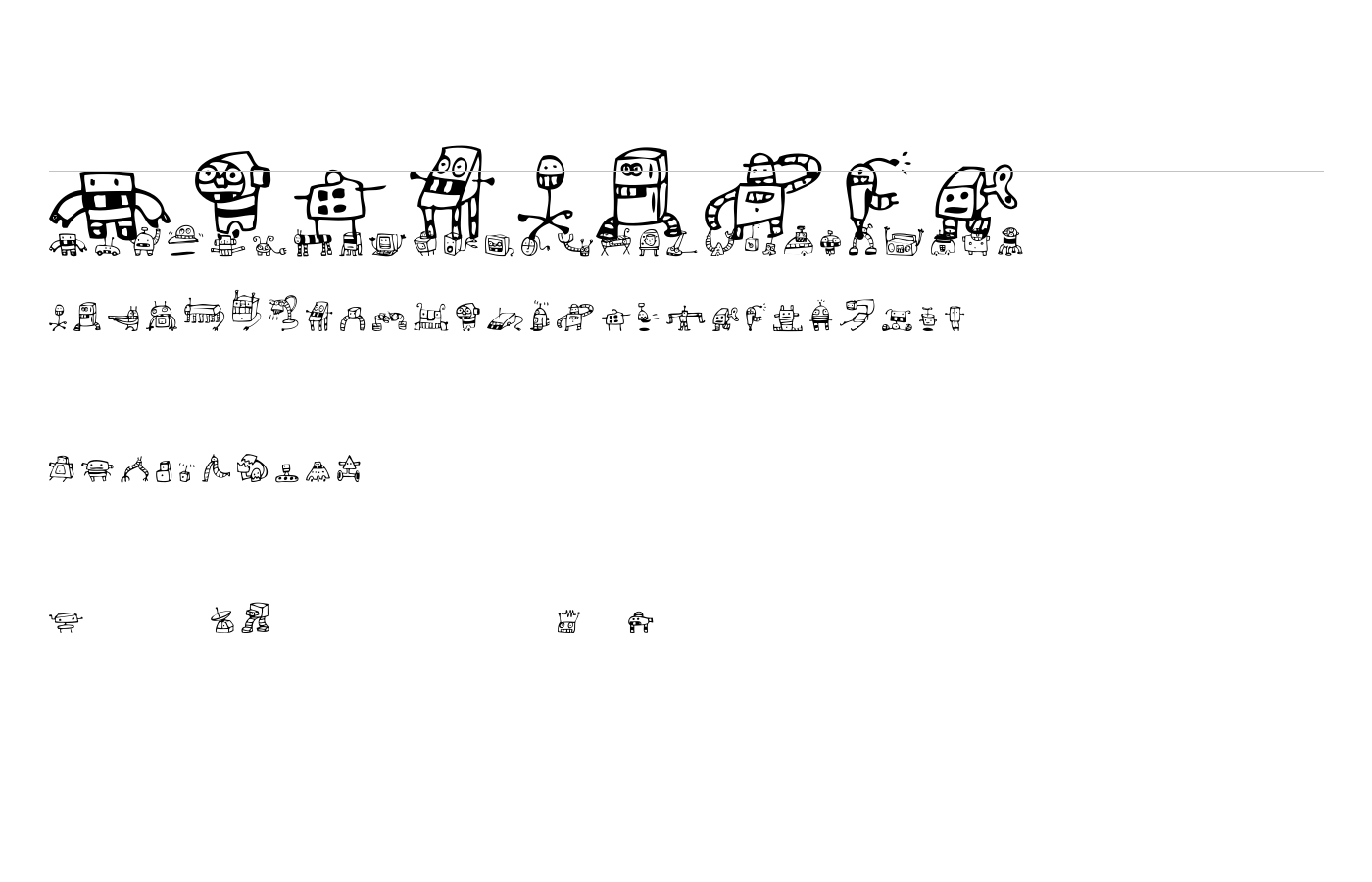
Alphabots is a playful, hand-drawn display font featuring whimsical robot characters instead of traditional letters. Its unique and quirky style brings a fun, creative vibe, perfect for children's projects, tech-themed designs, or imaginative branding. This font works best in headlines, logos, and playful packaging where its distinct personality can shine.
Alphabots Font
About Alphabots Font
| Designer | Alicia Souza |